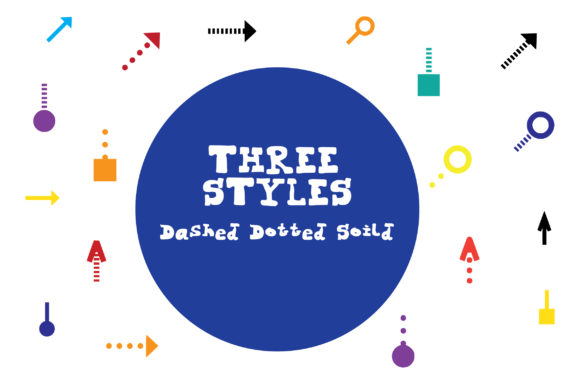
About BM Graphics – Graphic Arrows Glyph Font
Graphic Shapes Glyph sounds like an incredible dingbats font that specializes in arrows! With its vast collection of awesome arrows, this font can add a dynamic and eye-catching element to any design project. Here are some ideas on how to make the most of this font and create standout designs:
1. Website and UI Design: Utilize the arrow glyphs from Graphic Shapes Glyph to create navigation menus, buttons, or tooltips in web and UI design. Arrows can help guide users’ attention and indicate interactive elements, making the user experience more intuitive and engaging.
2. Infographics and Presentations: Enhance your infographics and presentations by incorporating arrows from the font. Arrows can be used to highlight key points, show data flow, or direct the viewer’s focus to important information. Experiment with different arrow styles and sizes to create visual hierarchy and add visual interest.
3. Logo Design: Design a unique and memorable logo using the arrow glyphs as a central element. Arrows can symbolize progress, movement, direction, or transformation, making them versatile for a wide range of industries and businesses. Customize the arrows to align with your brand’s identity and values.
4. Print and Digital Marketing Collateral: Incorporate the arrow glyphs into your marketing materials such as brochures, flyers, social media graphics, or advertisements. Arrows can be used to guide the viewer’s eye, create visual flow, or emphasize calls to action. Combine different arrow styles to add variety and intrigue to your designs.
5. Signage and Wayfinding: Use the arrow glyphs to design clear and visually appealing signage and wayfinding systems. Arrows can help guide people in the right direction, indicate exits, or provide navigation cues in public spaces, campuses, or large venues. Consider the size, color, and placement of the arrows for optimal visibility and effectiveness.
6. Motion Graphics and Video Editing: Incorporate the arrow glyphs into your motion graphics or video editing projects. Arrows can be animated to create dynamic transitions, reveal hidden elements, or enhance visual storytelling. Experiment with different animation techniques to add energy and impact to your videos.
Remember to experiment with different styles, sizes, and compositions to find the perfect combination of arrows that suits your design needs. Let Graphic Shapes Glyph inspire your creativity and bring a unique touch to your projects.